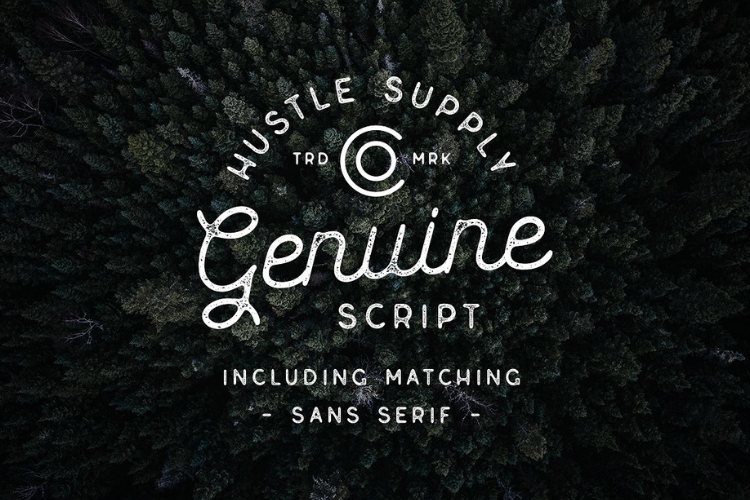
Genuine Script - Textured Type Duo
Introducing Genuine Script By HSCo Labs
This typeface is the first of many in a collaboration series with other type designers. This typeface was a collaboration between Jeremy Vessey & Stephanie Arsenault!
Genuine Script is a mono weight cursive typeface! It comes with a perfect type pairing, Genuine Sans. Both typefaces come in clean and textured versions. Both typefaces include Western European characters. Inspired by modern hand lettering and calligraphy.What's Included?
Genuine Script - Textured Type Duo